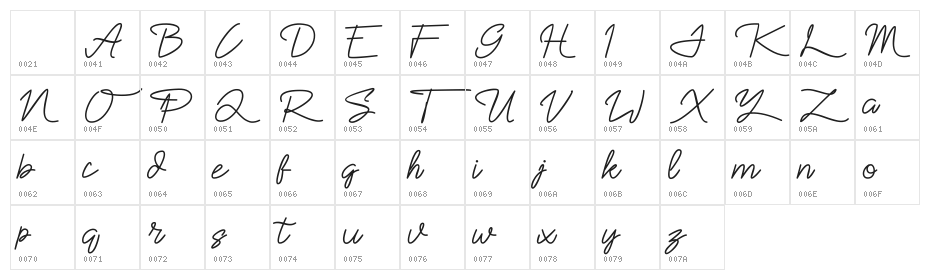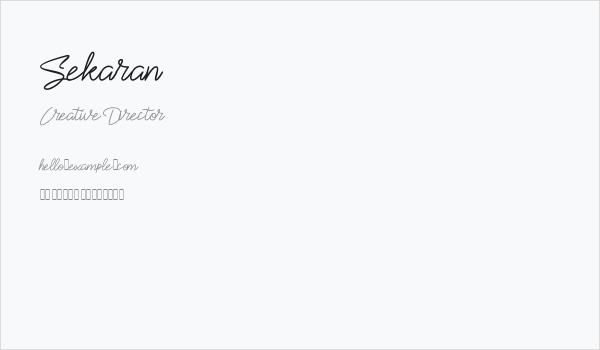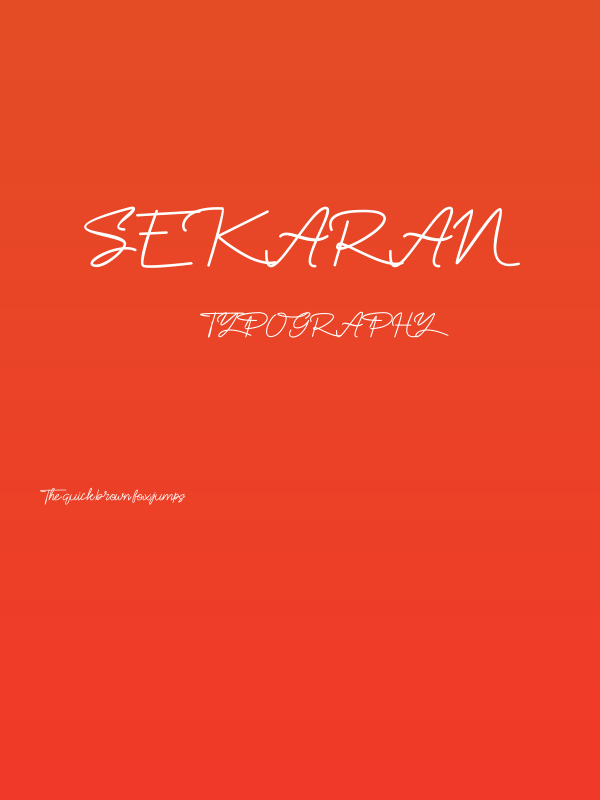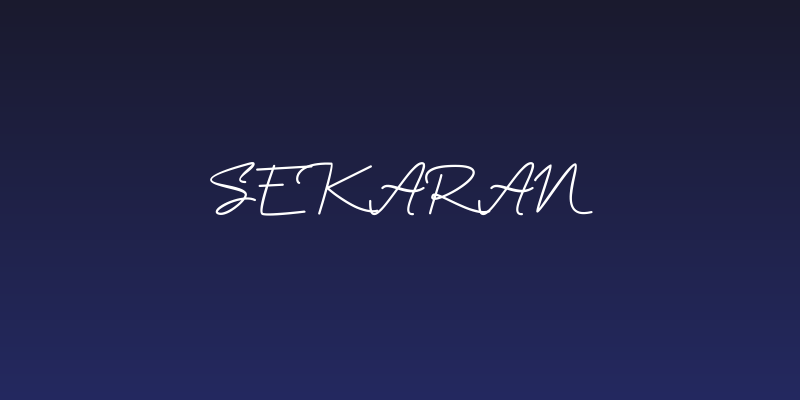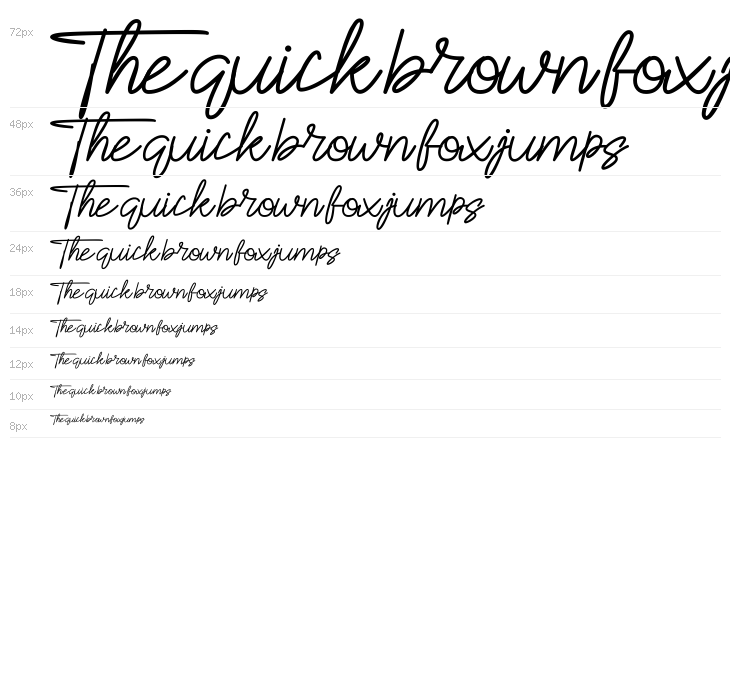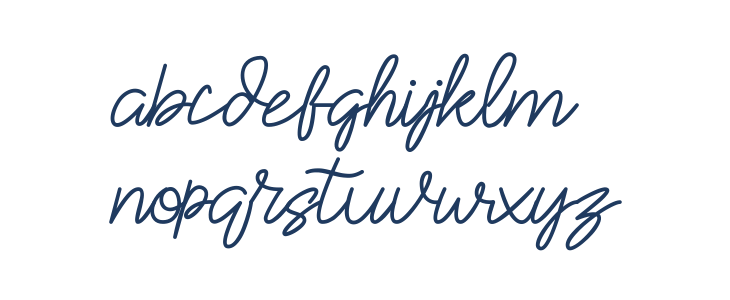
Sekaran Font
Sekaran Description
This font features a dynamic and fluid script style, characterized by its elegant and flowing letterforms. The uppercase letters are slightly more restrained, maintaining a sense of sophistication, while the lowercase letters exhibit a more playful and expressive nature. The strokes are smooth and continuous, creating a sense of movement and grace. This font is well-suited for projects that require a personal touch, such as invitations, greeting cards, or branding materials. Its versatility allows it to be used in both formal and informal contexts, making it a valuable addition to any designer's toolkit.
| Overall Style | Elegant, Fluid, Expressive |
| Use Case | Headlines, Invitations, Branding |
| Proposed Projects | Ideal for invitations, greeting cards, branding, and personal projects. |